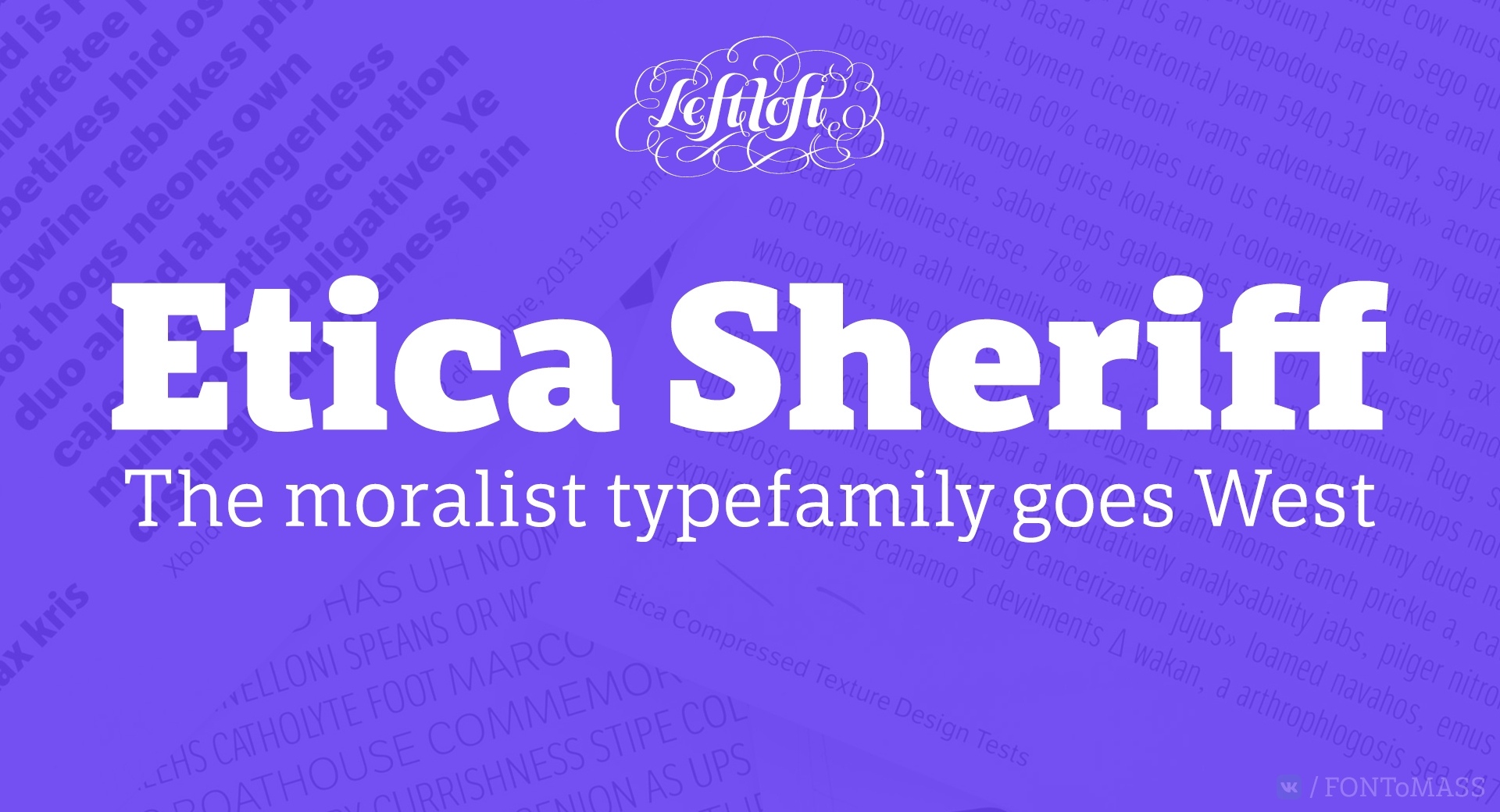
LFT Etica Sheriff Font
LFT Etica Sheriff Font is perfect for editorial design, book publishing, newspaper layouts, magazine articles, academic journals, corporate reports, professional documentation, legal texts, literary publications, and sophisticated reading materials.
What makes LFT Etica Sheriff Font so exciting is its exceptional readability that combines traditional serif elegance with contemporary optimization for both print and digital reading experiences. This outstanding typeface delivers superior text performance while maintaining distinctive character and professional sophistication.
The LFT Etica Sheriff Font family includes light, regular, medium, bold, and black weights, complete with italic variations and comprehensive OpenType features, providing designers with a complete typographic system for demanding editorial and publishing applications.
Elevate your editorial projects with LFT Etica Sheriff Font Free Download, a masterfully crafted serif typeface that defines excellence in contemporary text typography. This exceptional font represents the perfect fusion of classical serif traditions and modern reading optimization, making it an essential tool for publishers and designers who prioritize both beauty and functionality.
The expertly designed letterforms of LFT Etica Sheriff Font feature carefully balanced serifs and optimized character proportions that enhance reading comfort during extended text consumption. Each glyph has been meticulously crafted to provide maximum legibility while preserving the elegant character that distinguishes quality serif typography. The font's generous x-height and refined spacing contribute to superior reading flow and professional appearance across all sizes.
Publishing professionals and editorial designers consistently choose LFT Etica Sheriff Font for projects requiring exceptional text quality and sophisticated presentation. The comprehensive character set includes small caps, old-style figures, ligatures, extensive punctuation, and international support that provide complete tools for complex editorial compositions and multilingual publishing requirements.
The versatile excellence of LFT Etica Sheriff Font ensures outstanding performance across traditional print and modern digital publishing platforms. Whether developing literary publications, creating corporate documentation, or designing sophisticated magazines, this remarkable typeface delivers the readability and elegance that discerning readers and publishers demand.